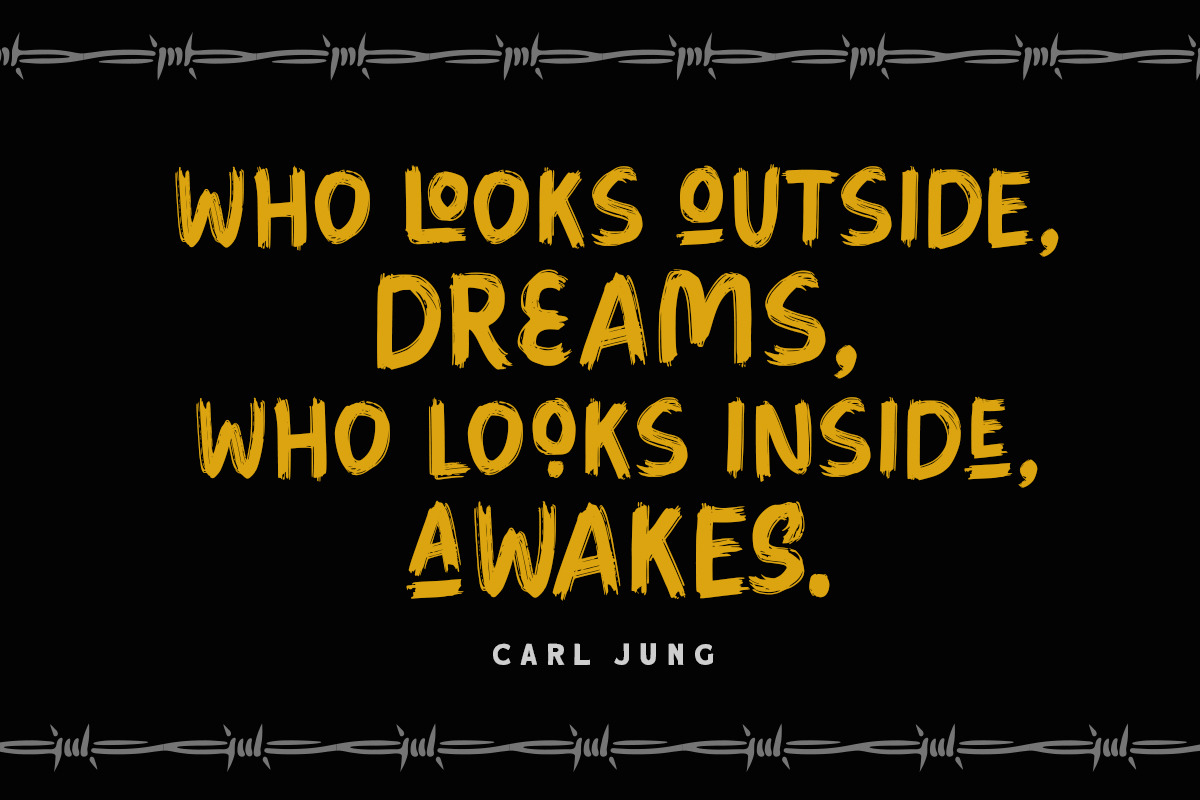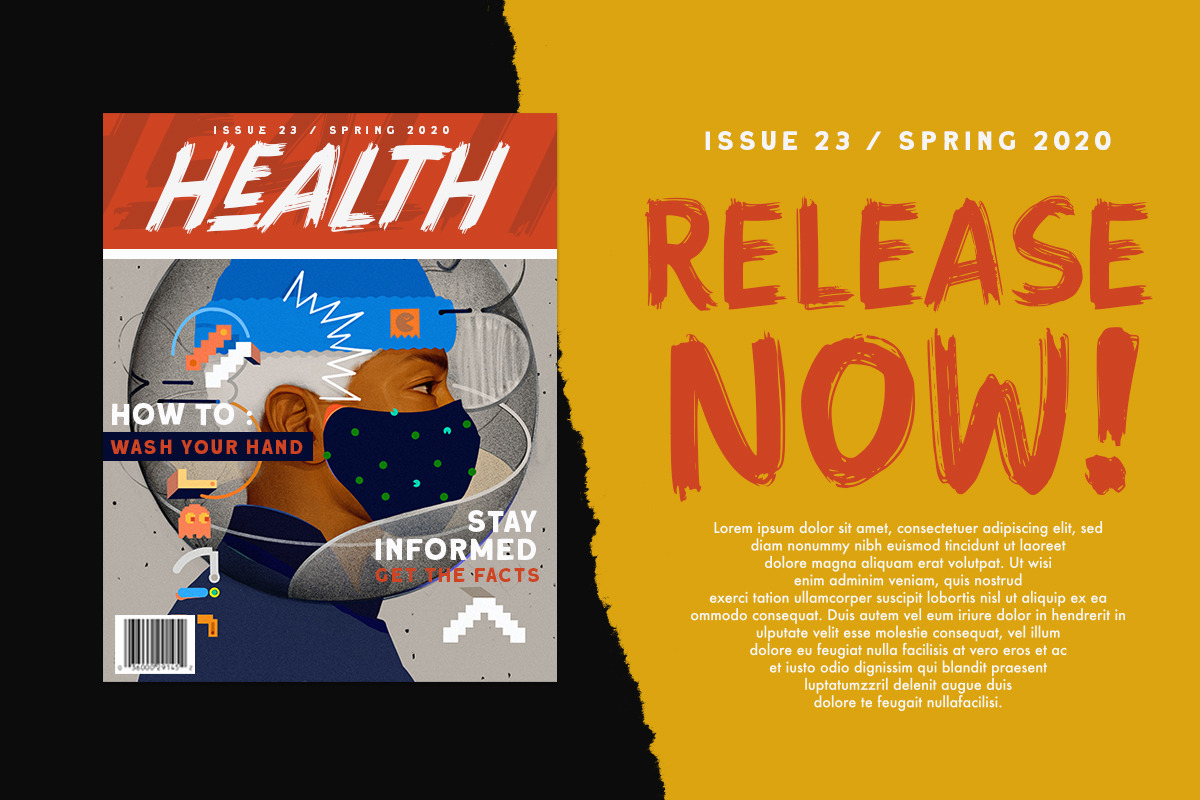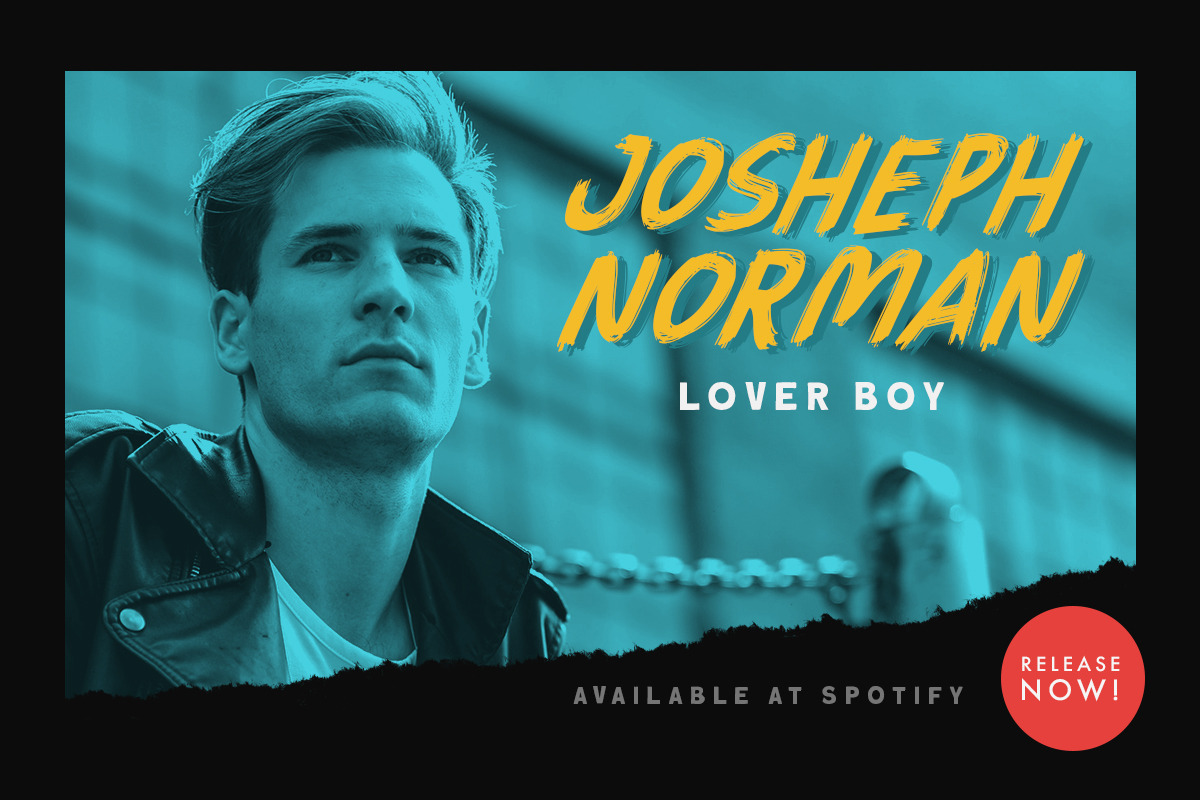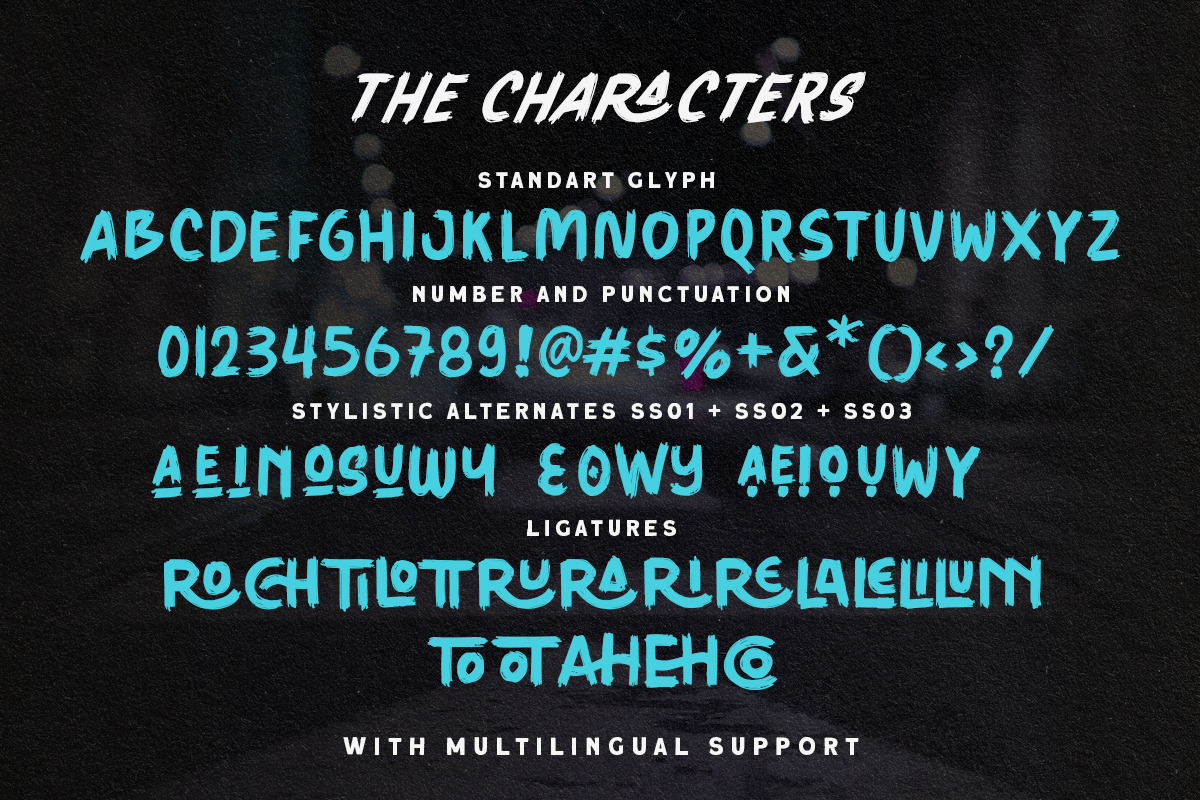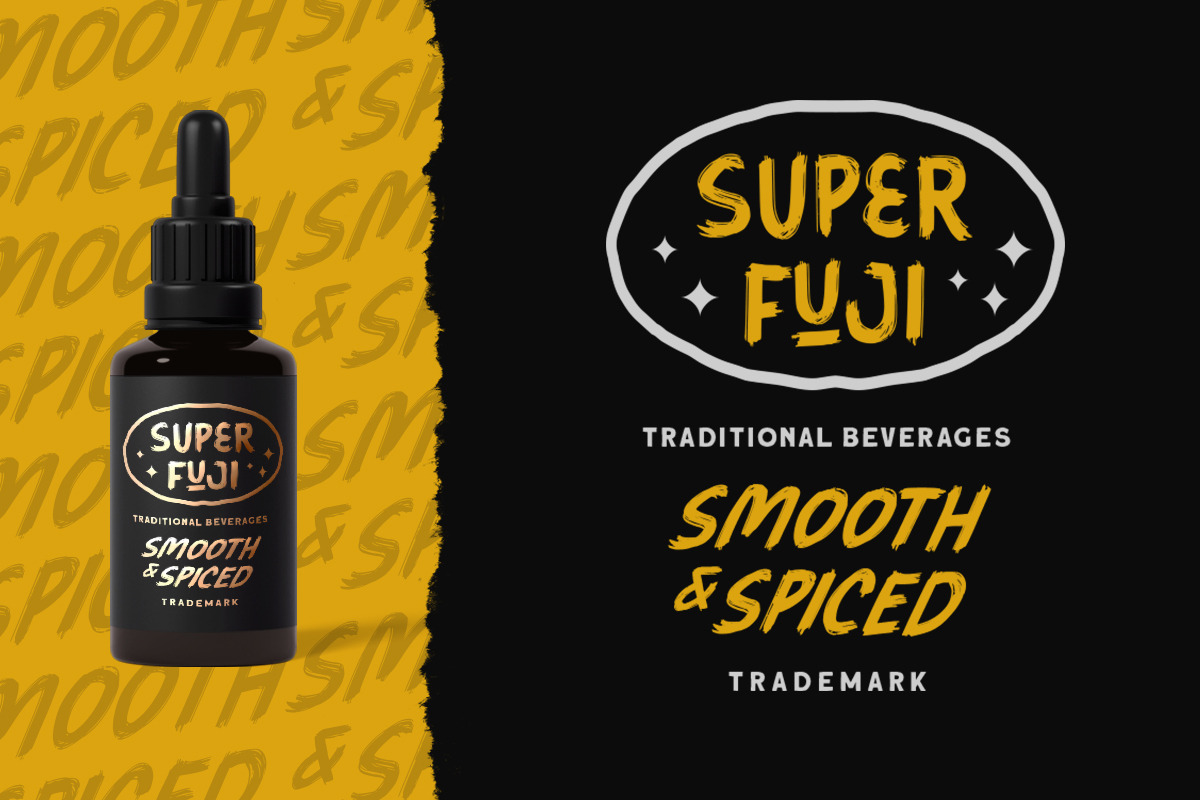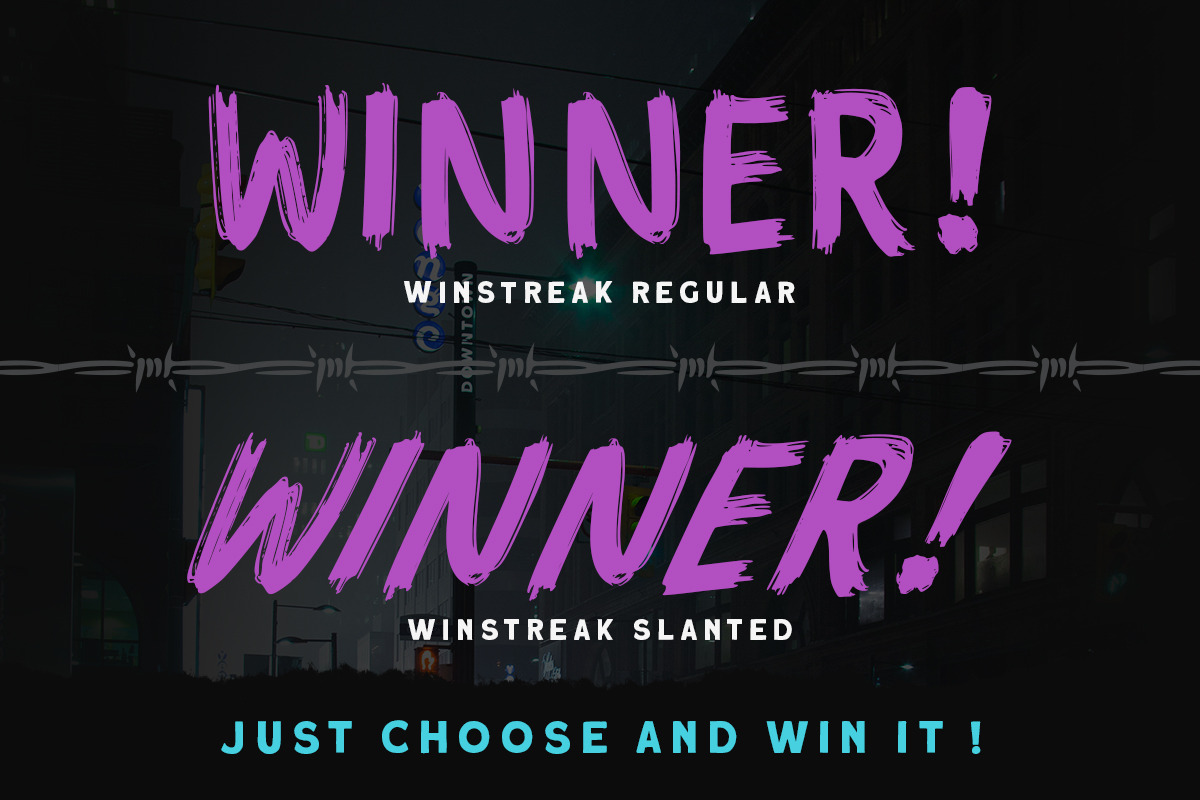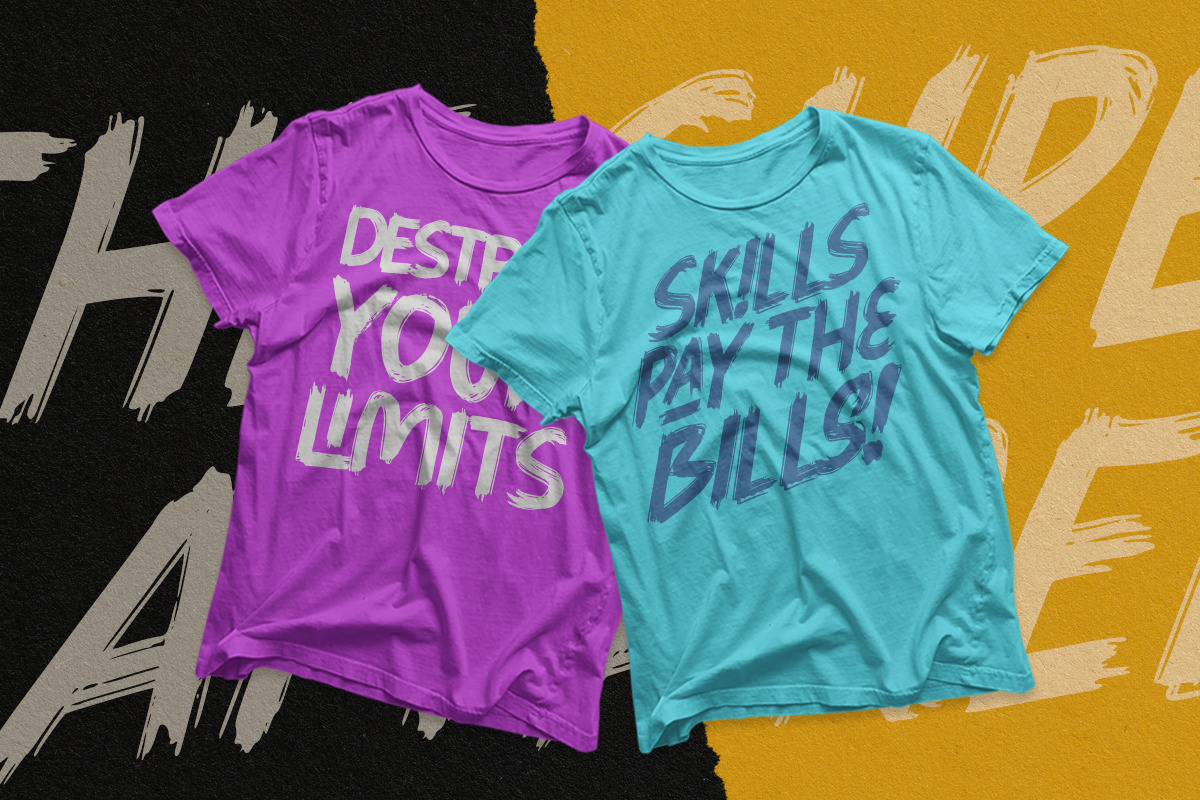
Winstreak - Brush Font
Introducing, Winstreak. A unique brush typeface with bold and strong feel. This font perfectly made to be applied especially in logo, and the other various formal forms such as invitations, labels, magazines, books, greeting / wedding cards, packaging, fashion, make up, stationery, novels, labels or any type of advertising purpose.
uppercase & lowercase (alternates)
numbers and punctuation
Ligatures and alternates
- uppercase & lowercase (alternates)
- numbers and punctuation
- Ligatures and alternates
- multilingual
- Winstreak Regular
- Winstreak Slanted